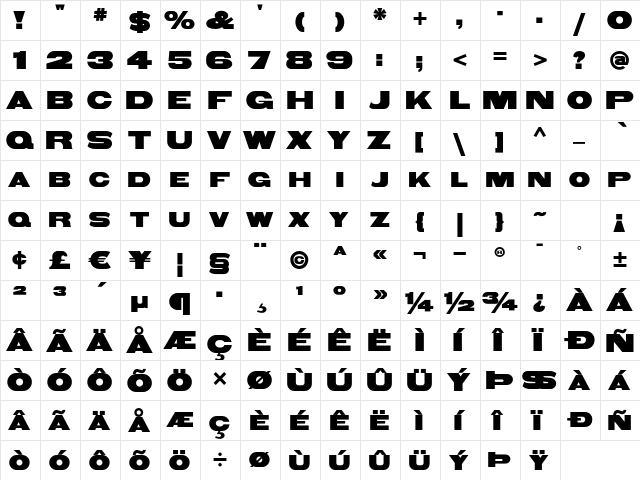
BrazosWBW UltraBold
| Foundry | Nick's Fonts |
| Designer | Nick Curtis |
Design Context for BrazosWBW Typeface
BrazosWBW offers clean, dependable letterforms without strong stylistic allegiance, making it a practical choice for designers who need flexibility. Its bold stroke weight gives it real presence on the page.